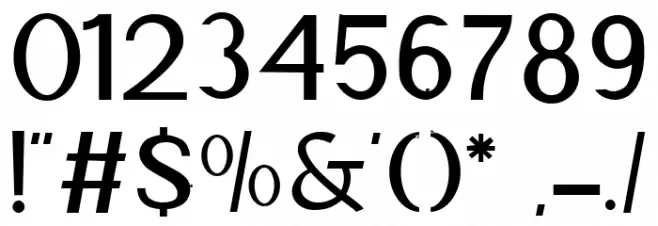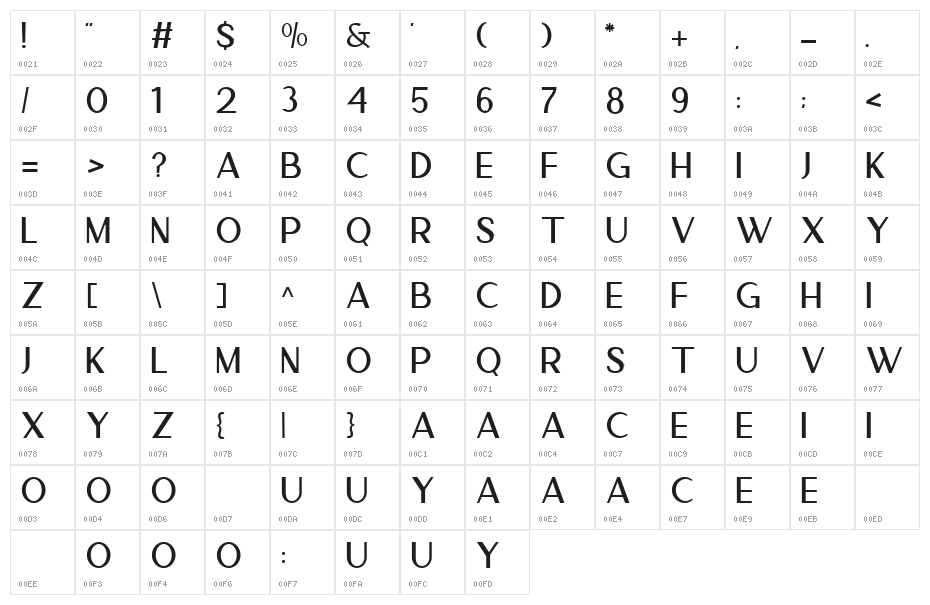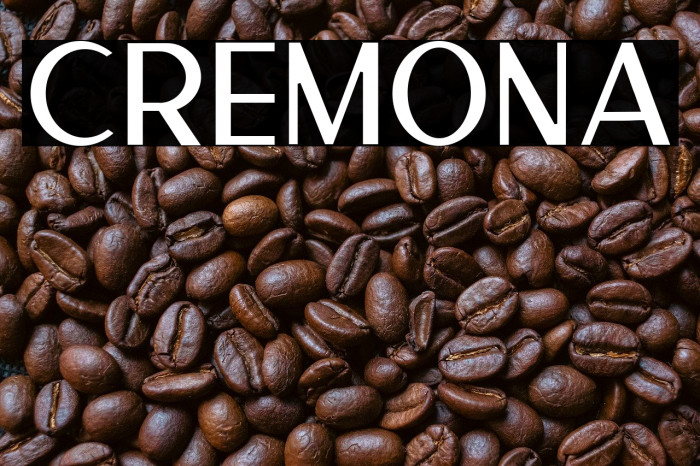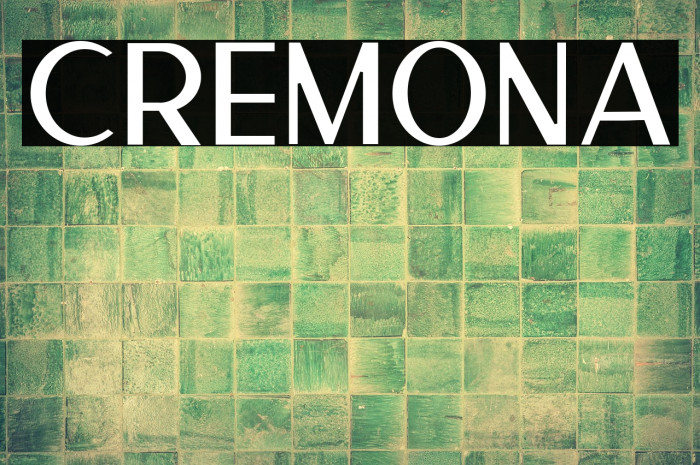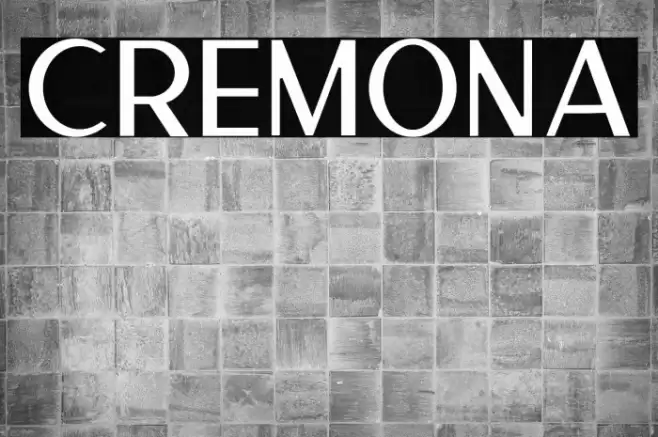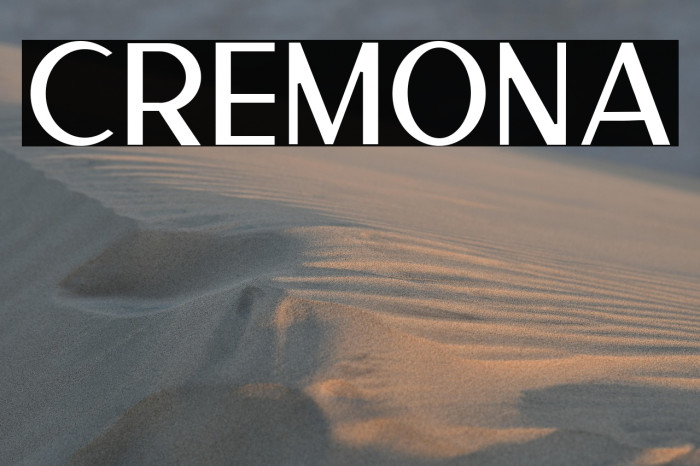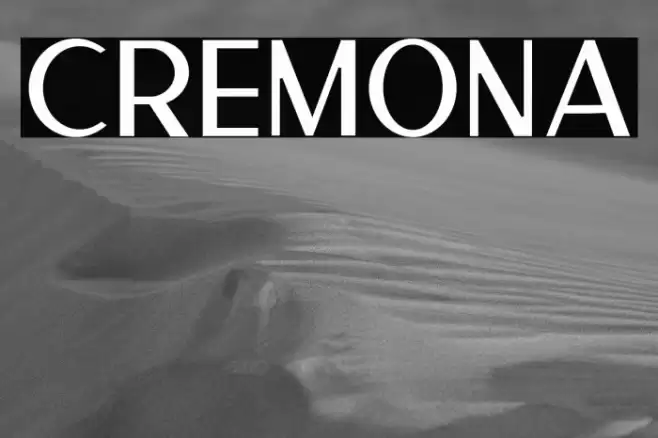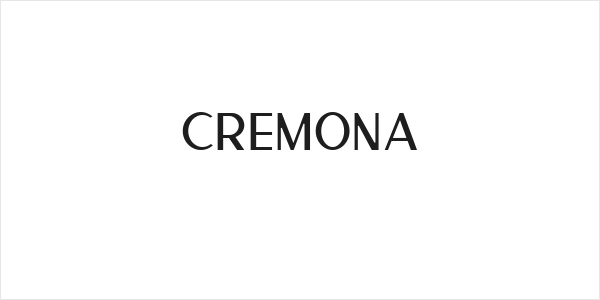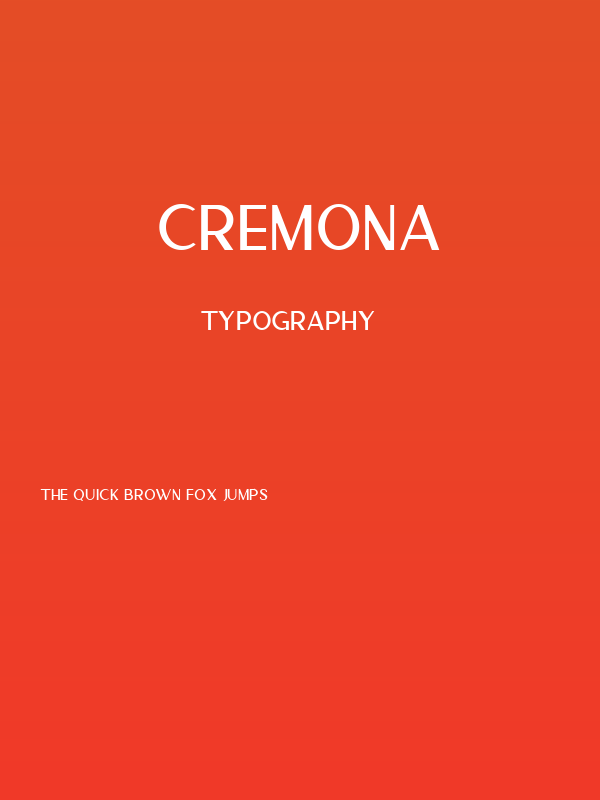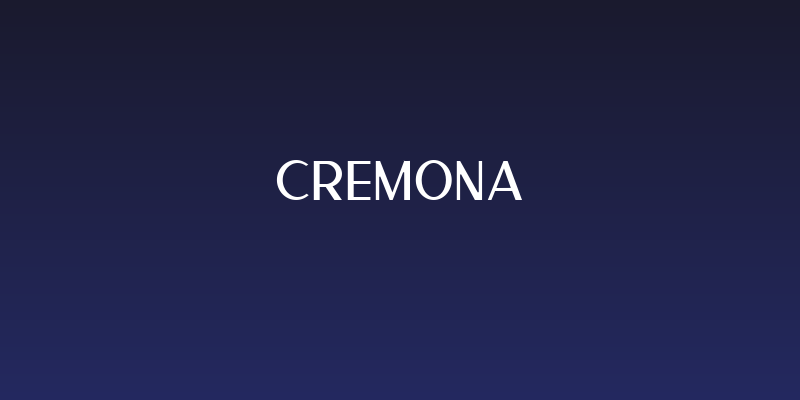
Cremona Font
Cremona Description
This font exhibits a clean and modern sans-serif style, characterized by its uniform stroke width and lack of serifs. The characters are well-balanced and evenly spaced, providing excellent readability. The uppercase letters are bold and assertive, while the lowercase letters maintain a consistent and harmonious appearance. The numerals are clear and distinct, making them suitable for both text and display purposes. Special characters are designed with precision, maintaining the overall aesthetic of the font. This font is versatile, suitable for a wide range of applications from digital to print media.
| Proposed Projects | Ideal for branding, web design, advertising, and editorial projects. |